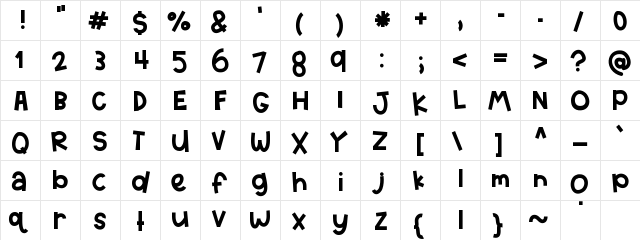
HelloTexas Medium
Design Context for HelloTexas Typeface
HelloTexas is a composed and adaptable typeface that performs quietly and consistently across a wide range of design contexts.
Pro Tip: Pair HelloTexas with a font of contrasting weight or personality to build a more expressive typographic hierarchy.